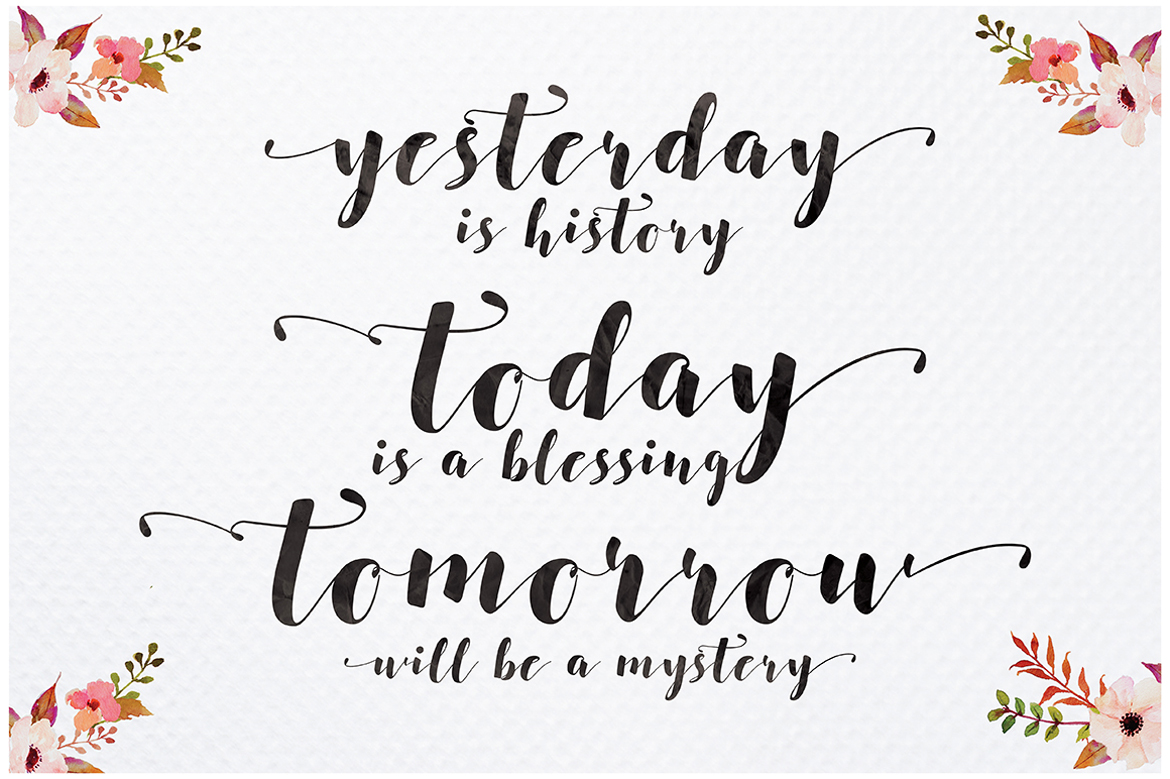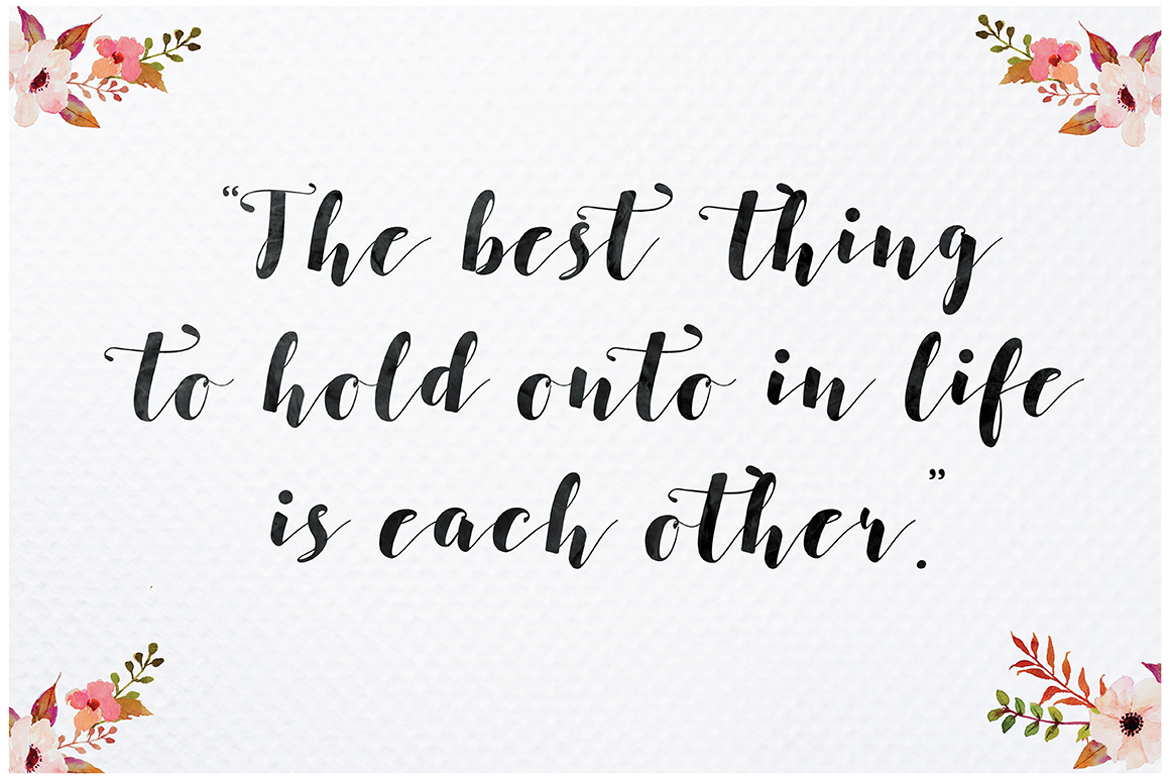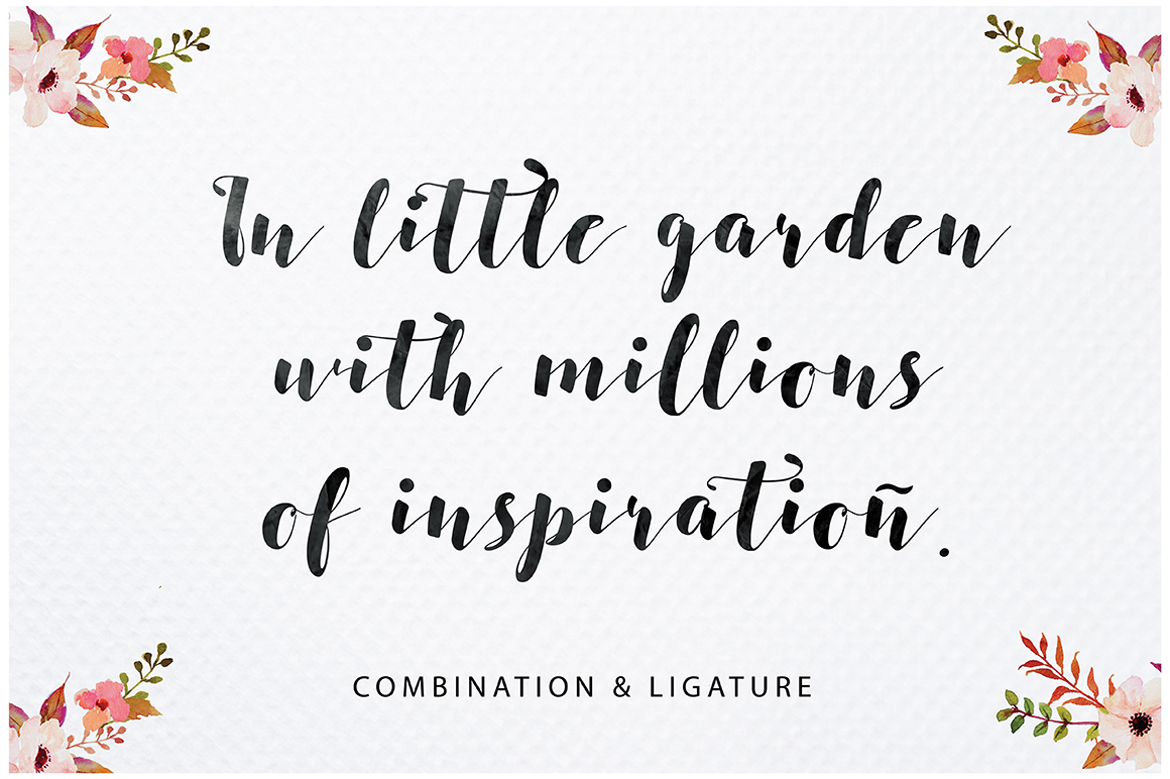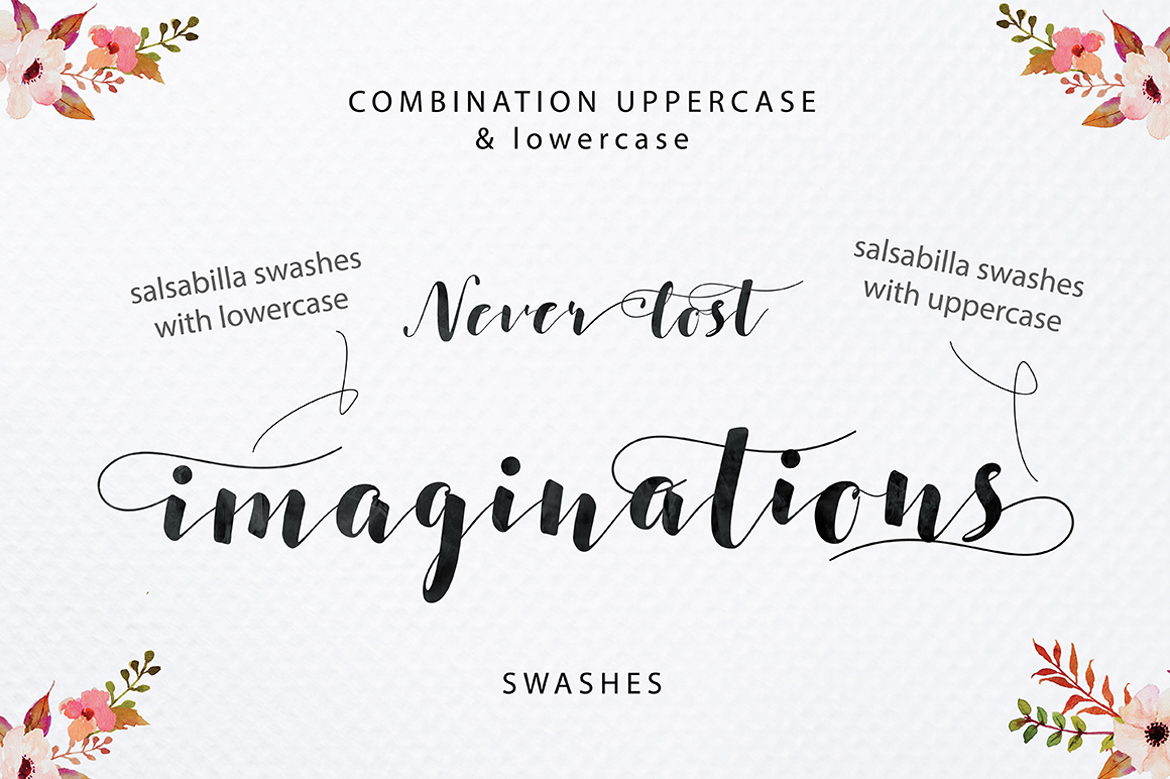
Salsabilla Font
About Salsabilla Font
Salsabilla is the pinnacle of brush calligraphy. With exaggerated weights in stroke and heights, Salsabilla is an ideal font when you want to incorporate beauty and casualness in your designs.